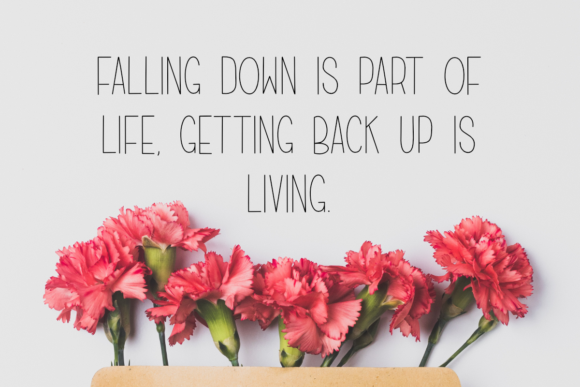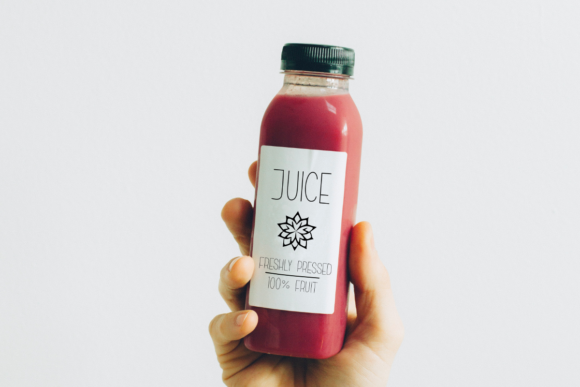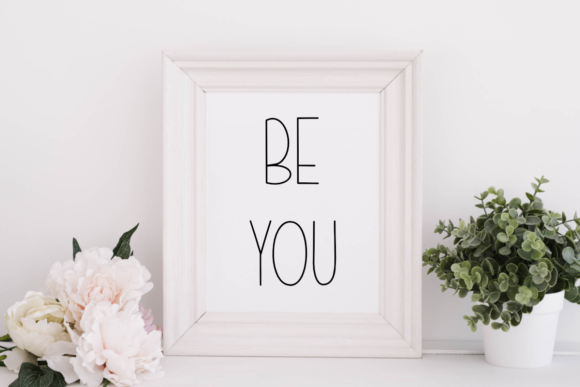
America Font: A Minimalist Sans Serif for Modern Design
About the America Font
Let us introduce you to America Font, where timeless design meets modern craftsmanship. America is a minimal and neat sans serif font. It can easily be matched to an incredibly large set of projects, so add it to your creative ideas and notice how it makes them stand out!
America’s clean lines and minimalist structure make it ideal for headlines, branding elements, and short-form text on posters or packaging. Its neutrality ensures readability in these contexts. However, its minimal x-height makes it less suitable for body text or lengthy paragraphs; using it in UI elements might compromise usability.
Its personality is modern and subtly confident, lending itself well to projects requiring a clean, professional aesthetic. Brands focused on technology, architecture, or minimalist design would find America a fitting choice.
Pairing America with a warmer serif like Playfair Display for headlines adds visual interest and sophistication. For body text, consider a neutral sans-serif such as Lato or Open Sans to maintain readability and consistency. A touch of a geometric sans-serif like Montserrat can provide a complementary modern feel in supporting elements.
America Font Usage Examples
America Font Example